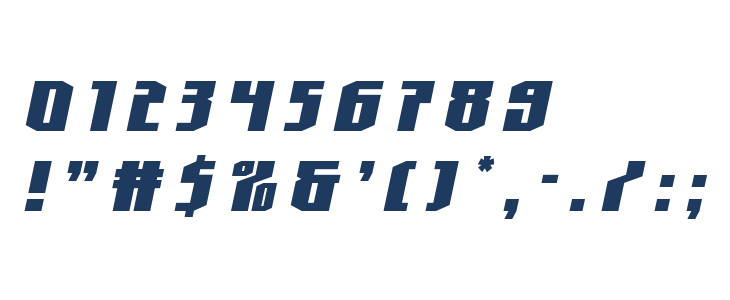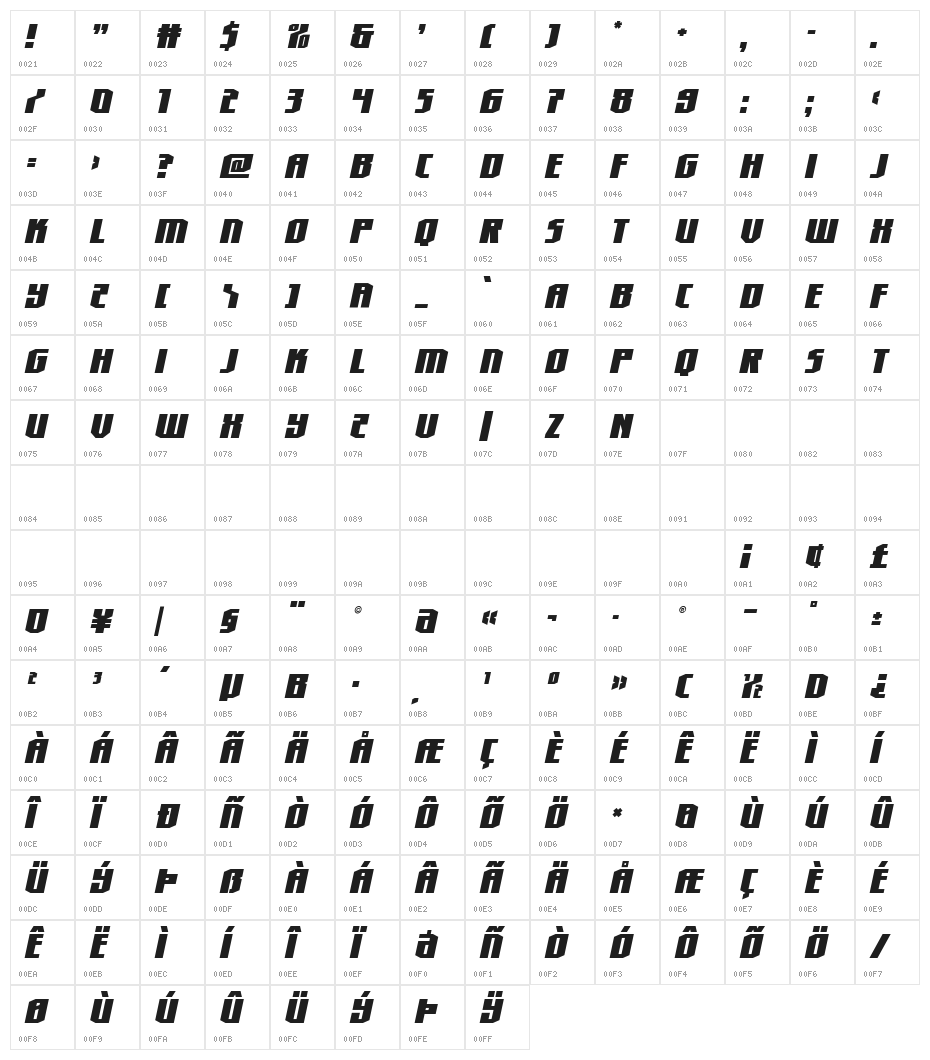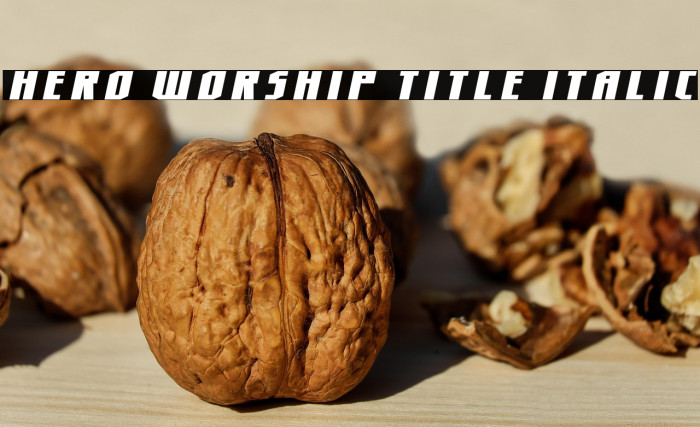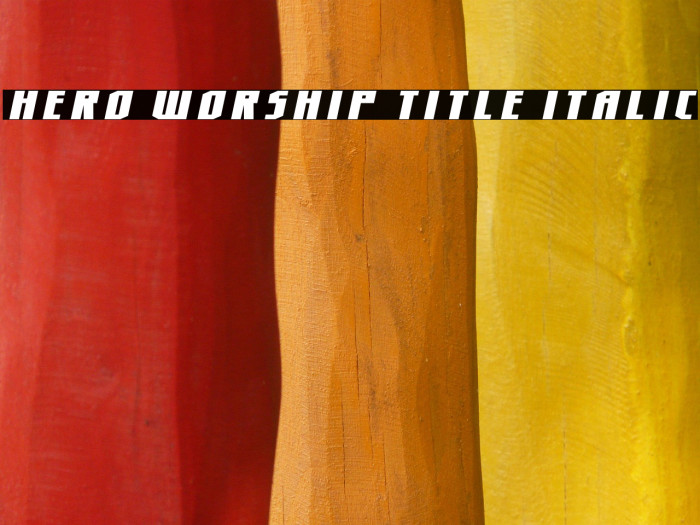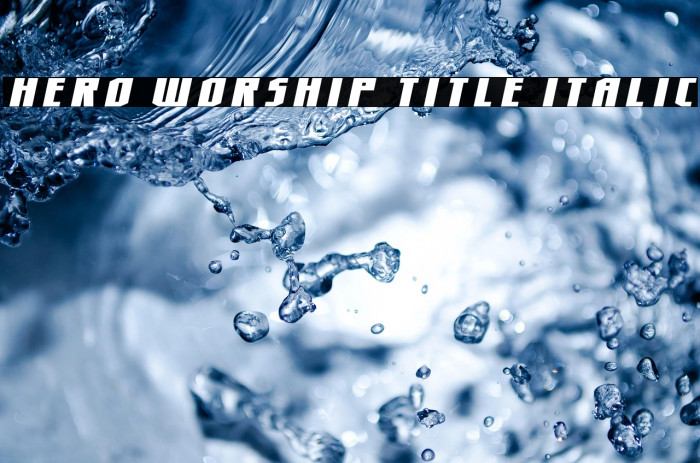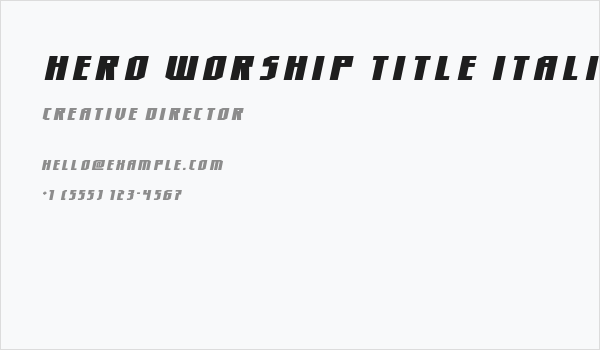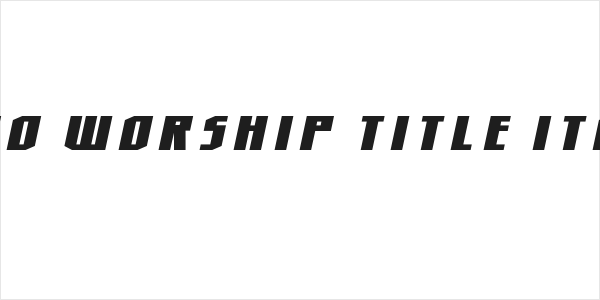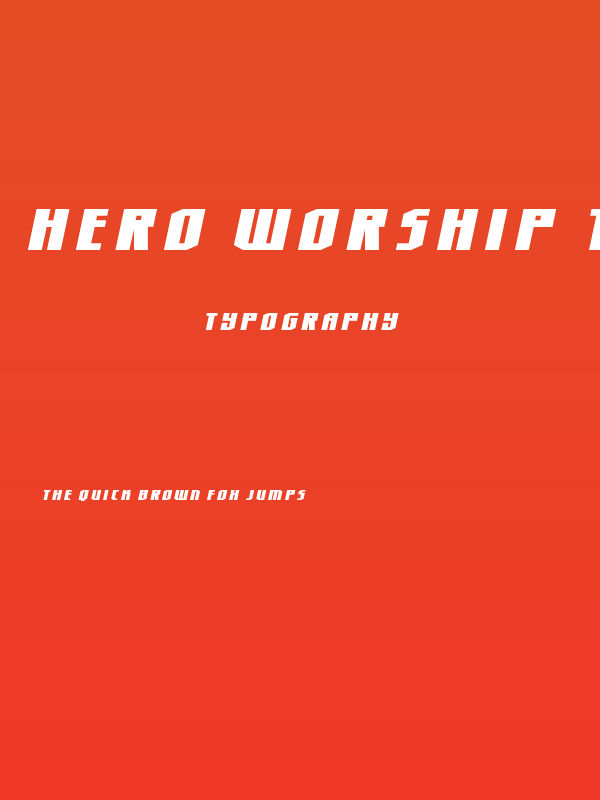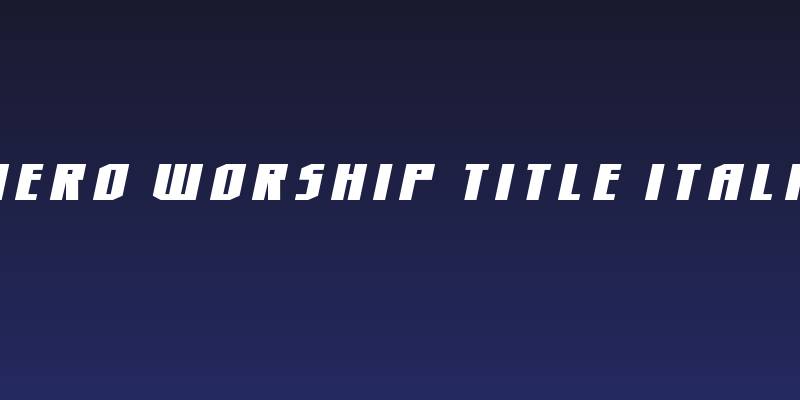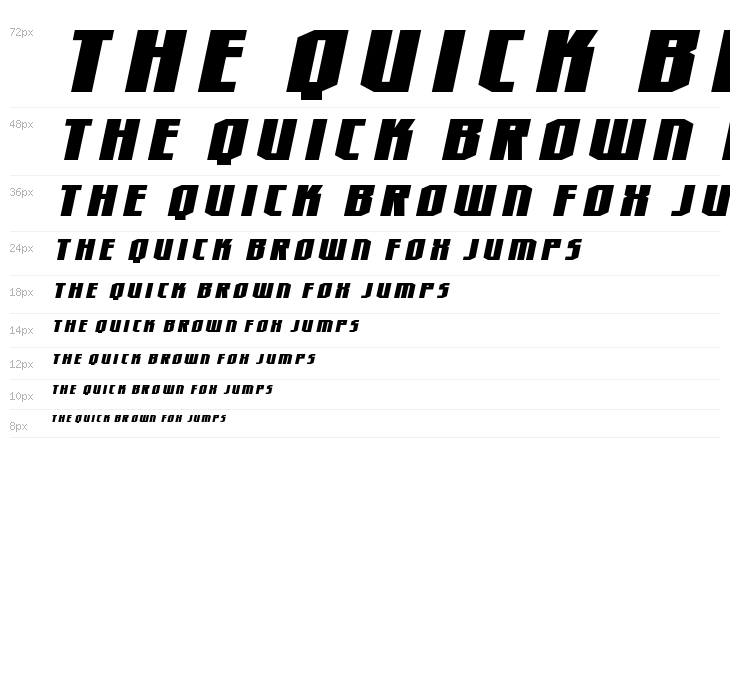
Hero Worship Title Italic Font
Hero Worship Title Italic Description
This font features a bold, italicized style with a strong, angular design. The characters are sharply defined, with a consistent slant that gives a sense of motion and dynamism. The uppercase and lowercase letters maintain a uniform width, creating a cohesive look. The numbers and special characters follow the same angular and italicized theme, ensuring consistency across all elements. The font's boldness and unique style make it stand out, suitable for projects that require a strong visual impact.
| Proposed Projects | Ideal for sports branding, action movie posters, and dynamic logo designs. |